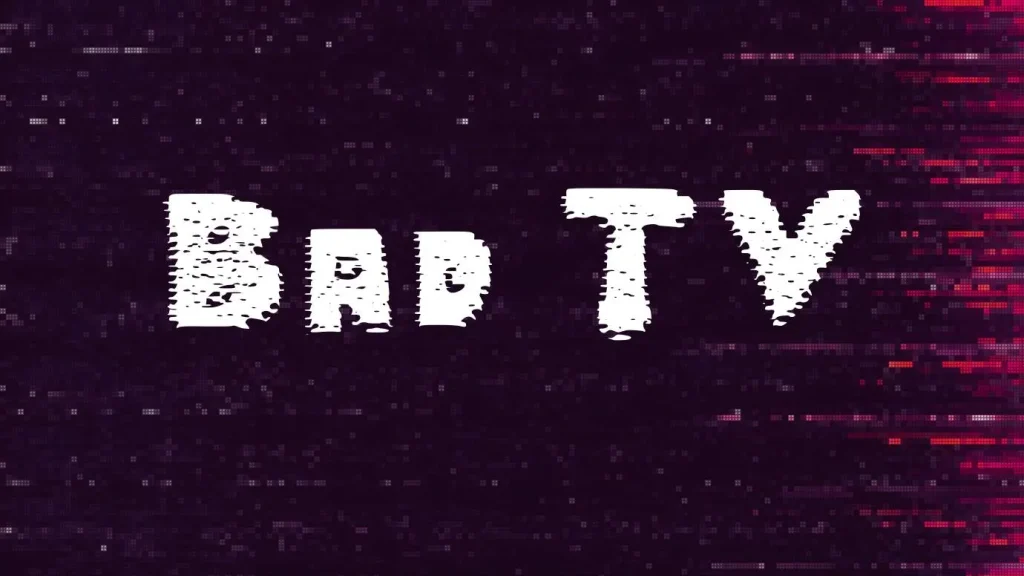
Bad Tv Font
About Bad Tv Font
Bad Tv Font is a modern fancy text style that could be an incredible choice to extend the noticeable quality of your venture. Although the typography is conventional, the essential components are extraordinary.